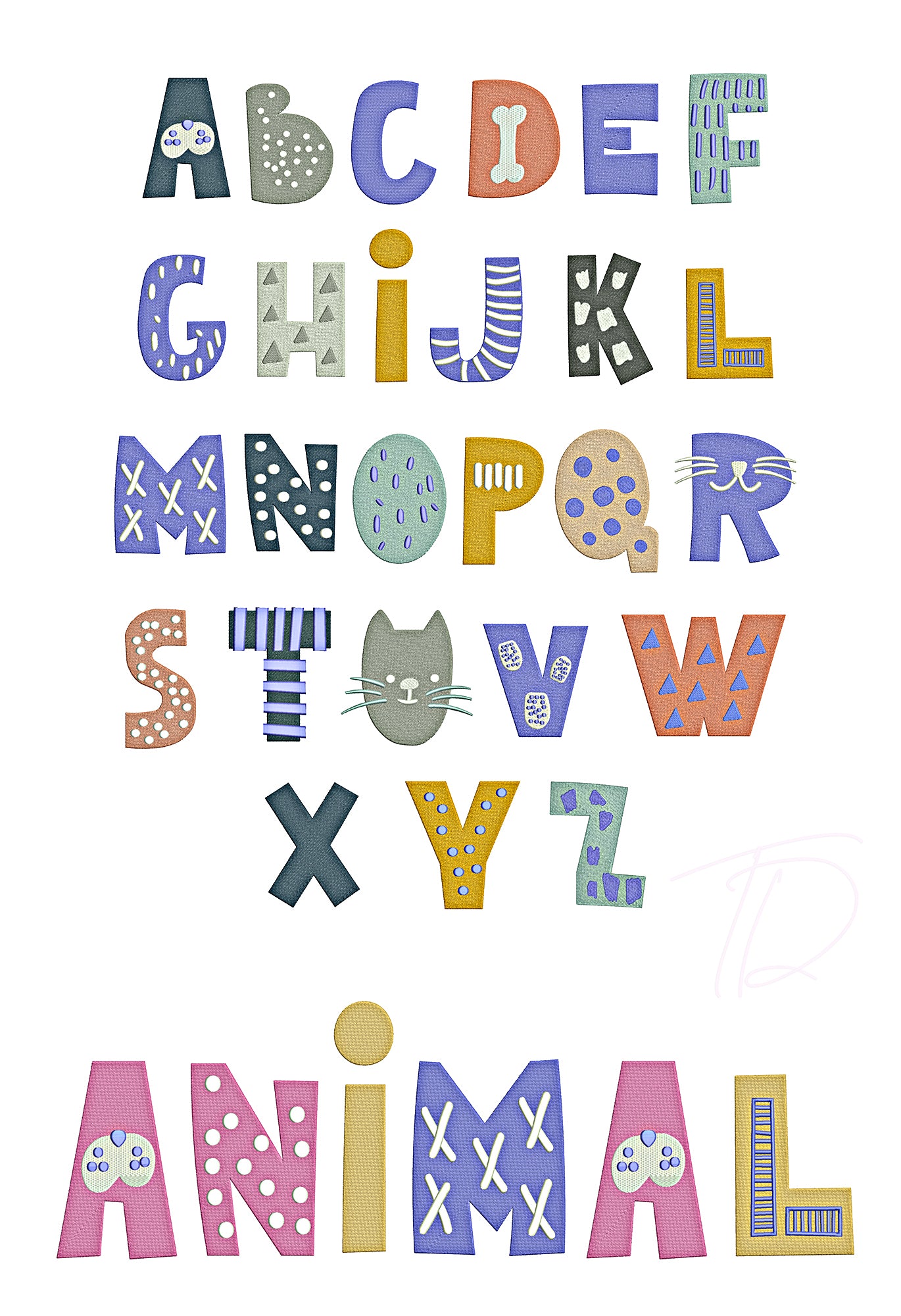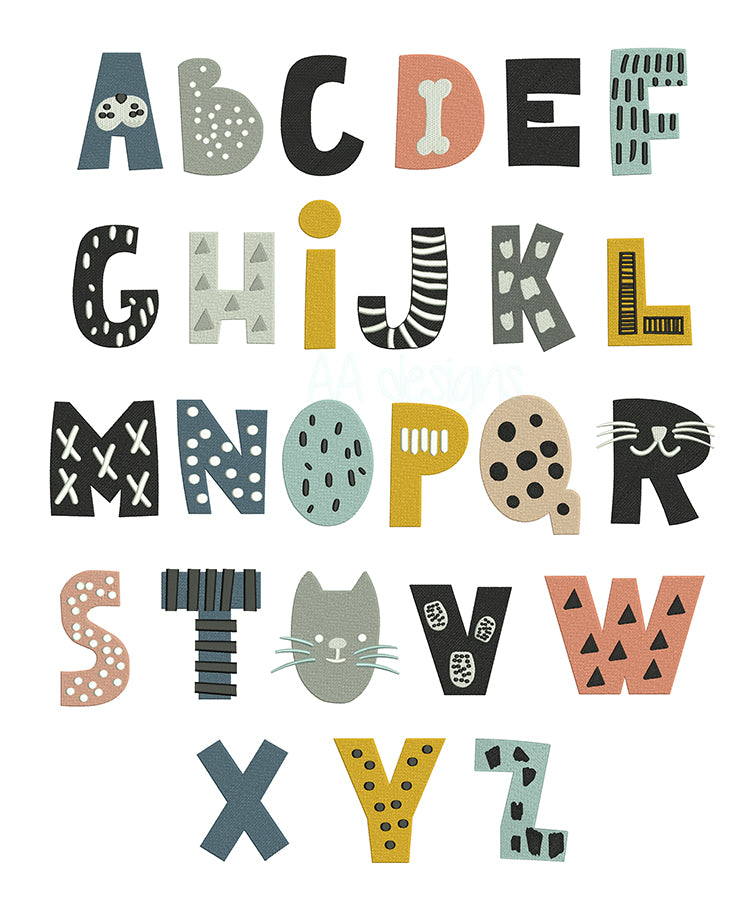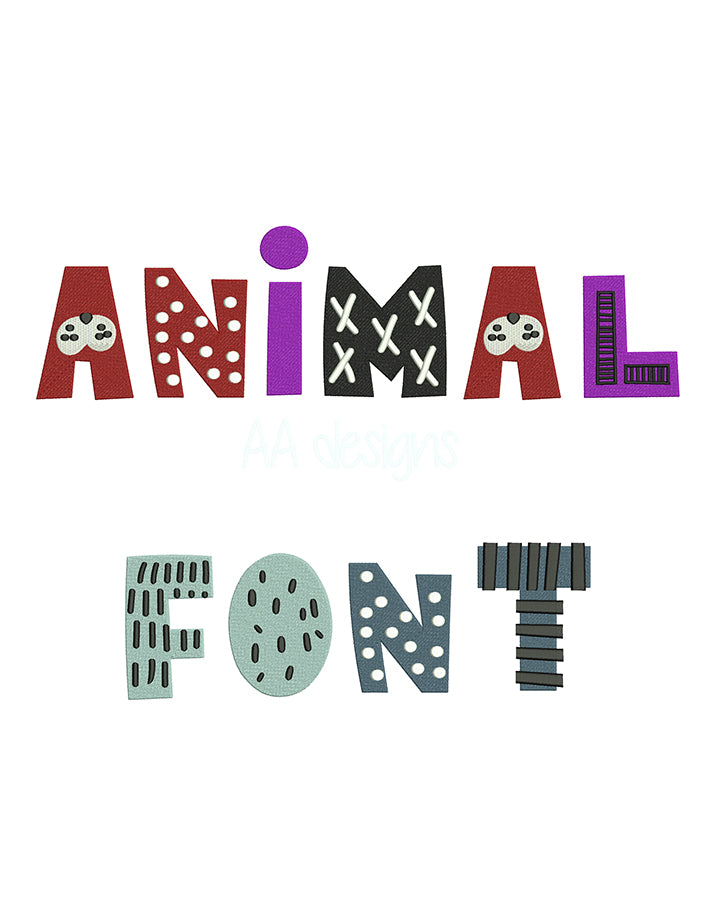
Animal embroidery digital font. Machine embroidery font for baby with cute animal
Animal embroidery digital font.
This font comes with letters in 3 sizes, A-Z (Upper case)